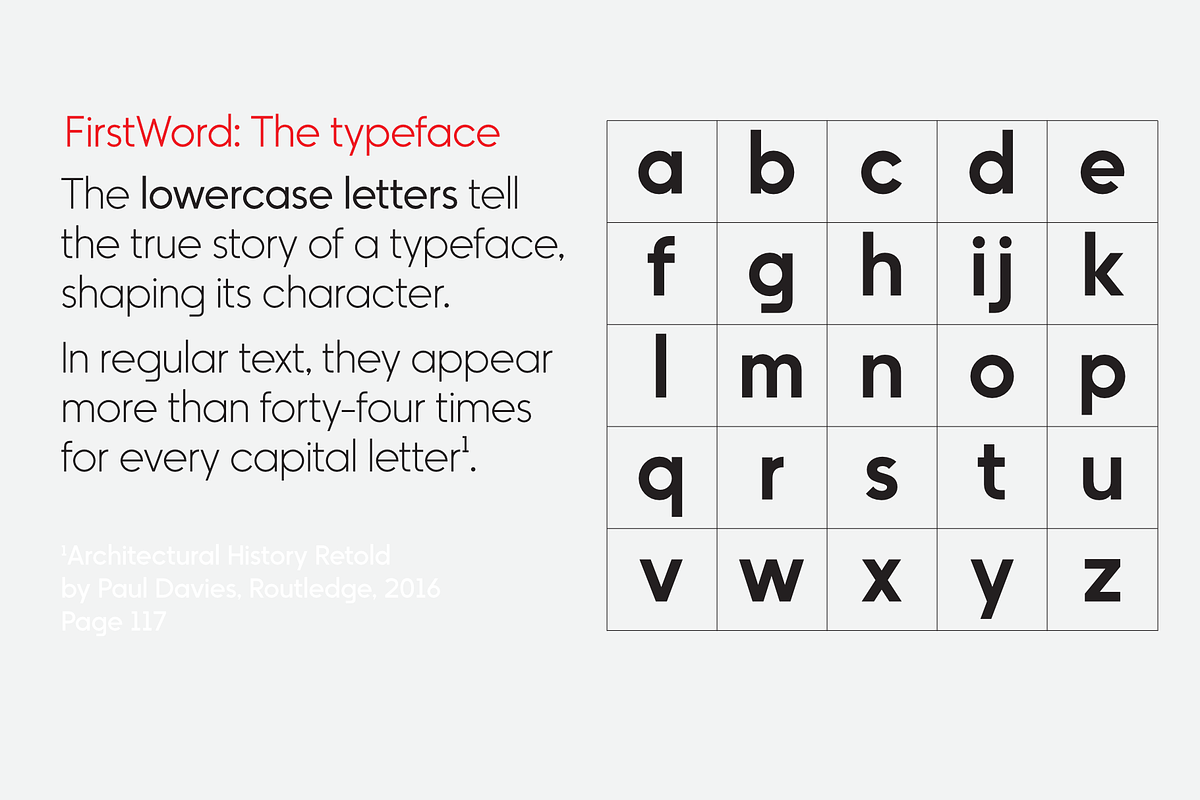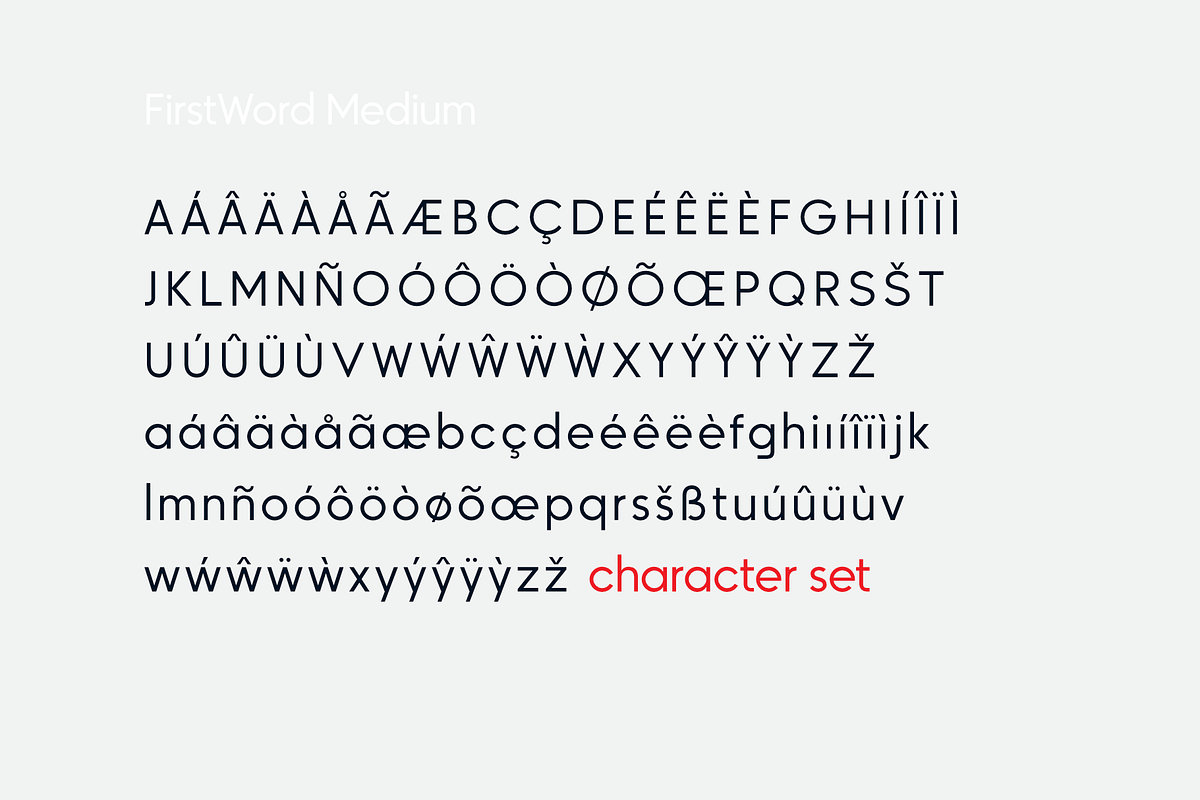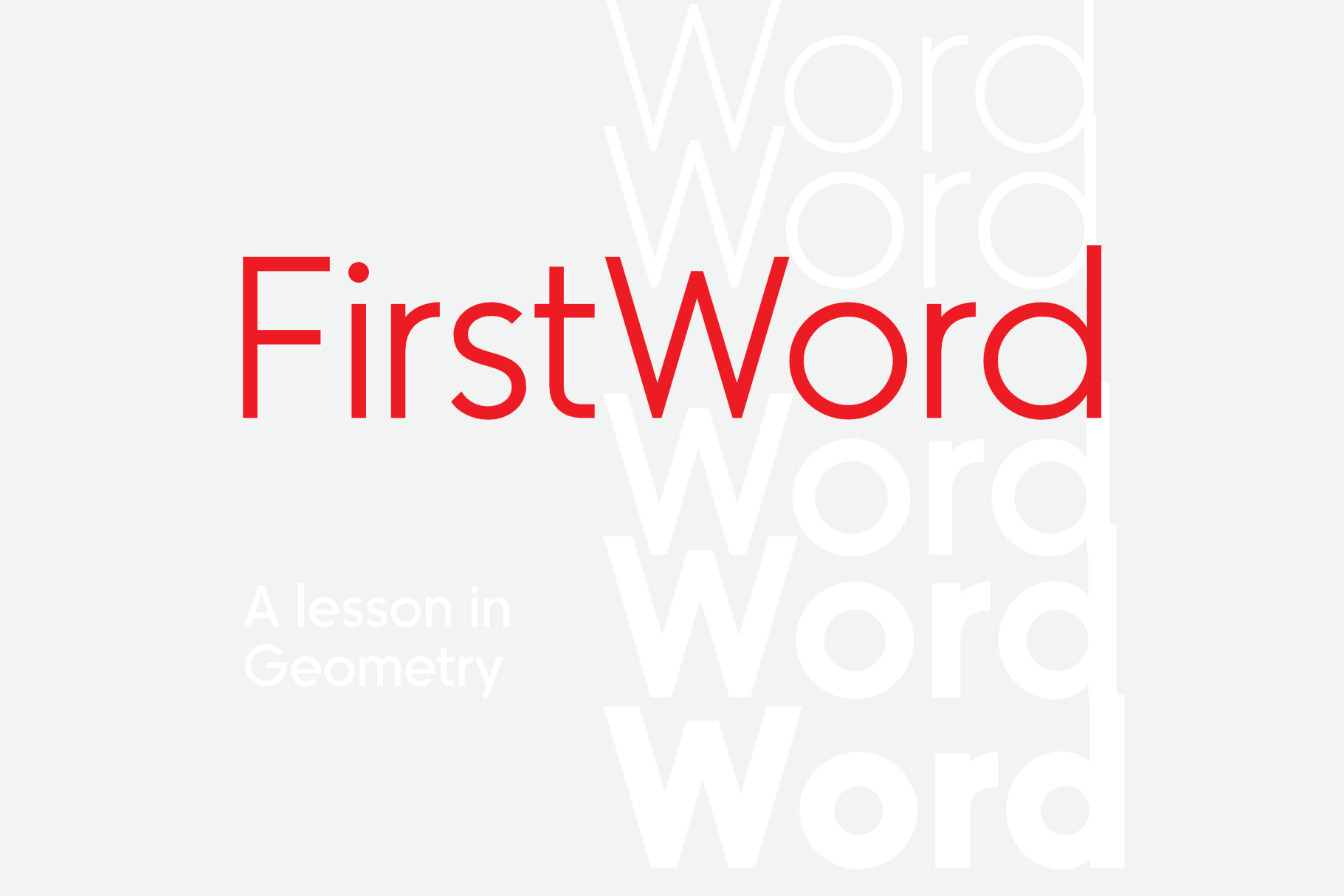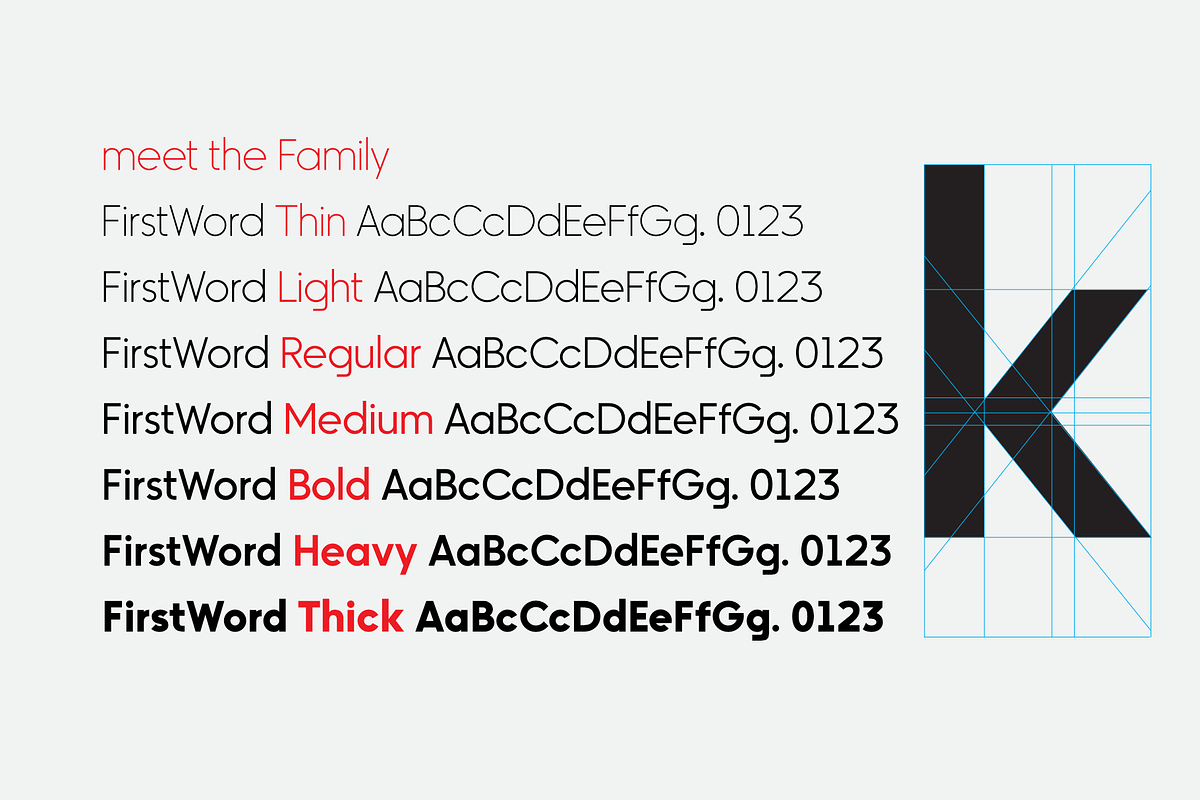
FirstWord typeface family
FirstWord: A Balance of Geometry and Expression FirstWord is a geometric typeface born from a deep appreciation for the subtle complexities of letterforms. Both precise and expressive, it balances the clean, structured aesthetics of geometric typography with subtle nods to neo-grotesque forms.
One of the biggest challenges in its creation was refining the relationship between letterforms and punctuation. Small details—such as the shape of the full point, comma, and quotation marks—can dramatically impact a typeface’s overall character.
The result is a typeface that feels both timeless and contemporary, designed for clarity in both print and digital applications. Every detail, from the numerals to the punctuation, has been crafted with purpose—refining the intersection of geometric precision and humanist warmth.
Features 7 weights (from thin to thick) Multi language; support for 68 languages (310 characters) Opentype features; case sensitive,denominators, fractions, numerators, scientific inferiors, subscript, superscript, tabular figures